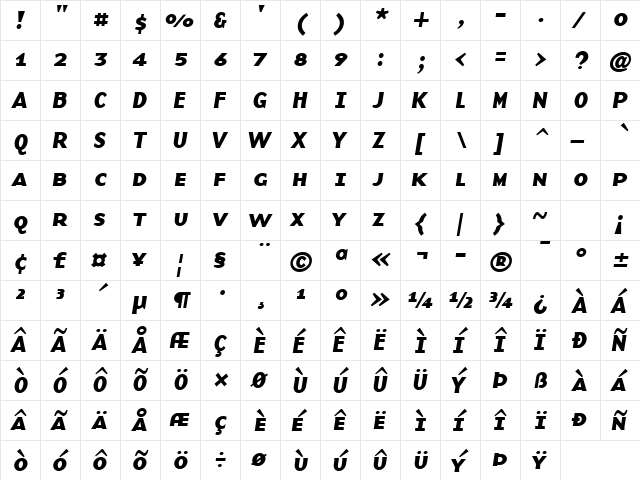
BaseNineSmallCaps Bold Italic
Design Context for BaseNineSmallCaps Typeface
BaseNineSmallCaps offers clean, dependable letterforms without strong stylistic allegiance, making it a practical choice for designers who need flexibility. Its italic angle brings a sense of urgency and motion to the letterforms. The heavy weight commands attention and anchors typographic hierarchies.
Pro Tip: Use BaseNineSmallCaps for emphasis, pull quotes, and subheadings where its slanted energy can add rhythm to the layout.